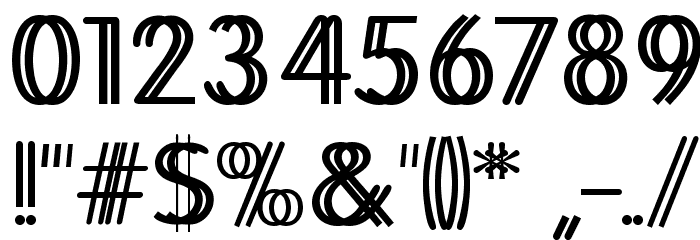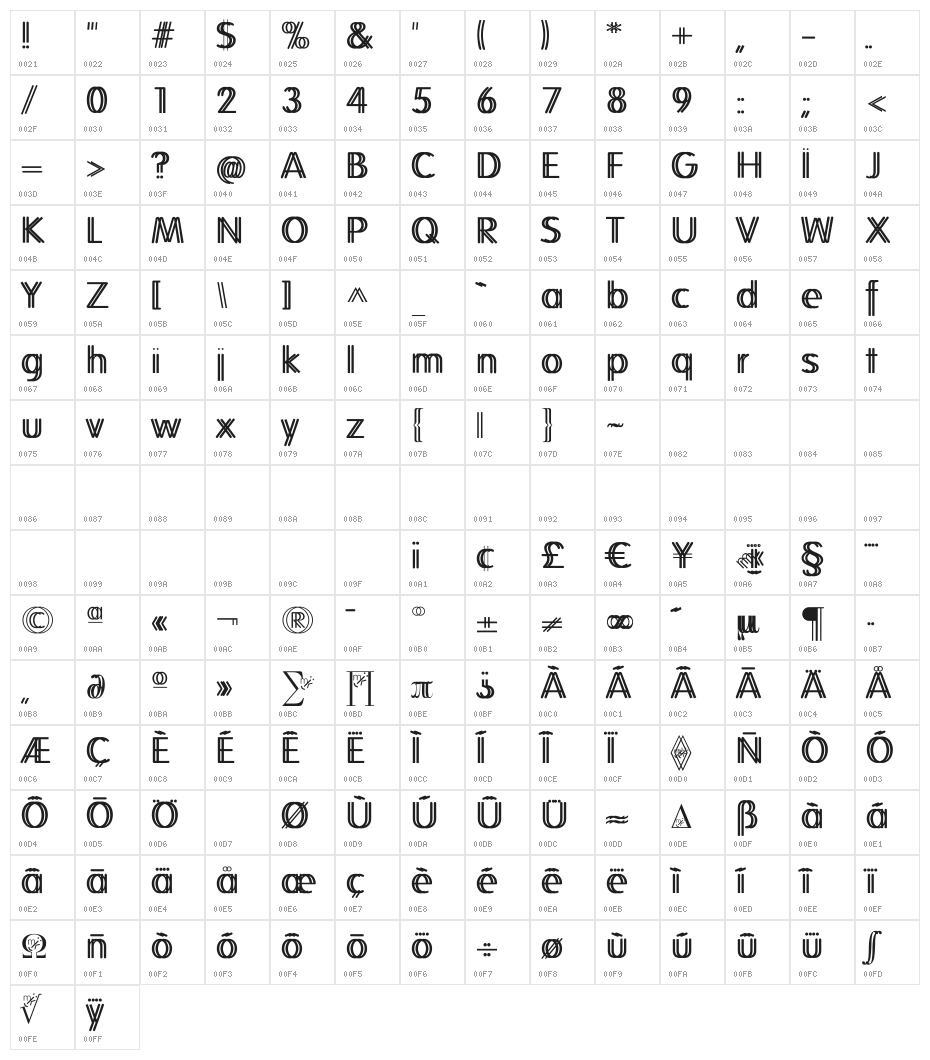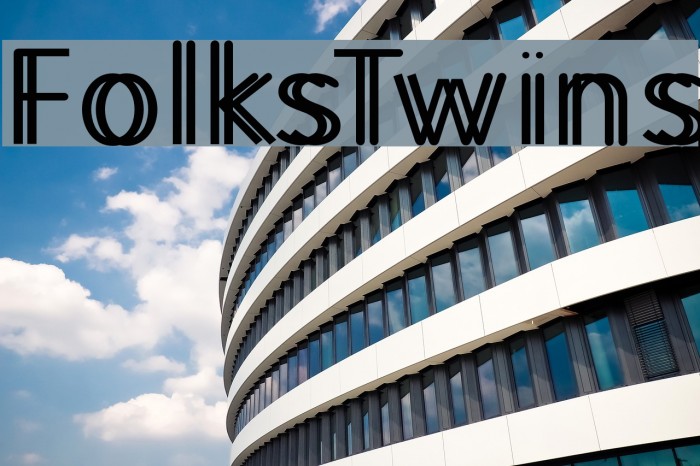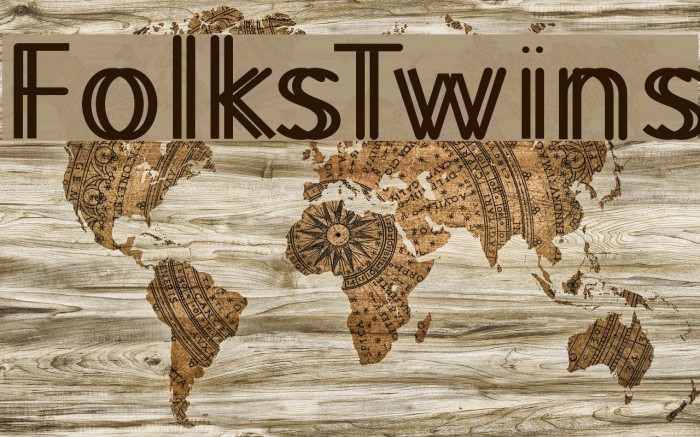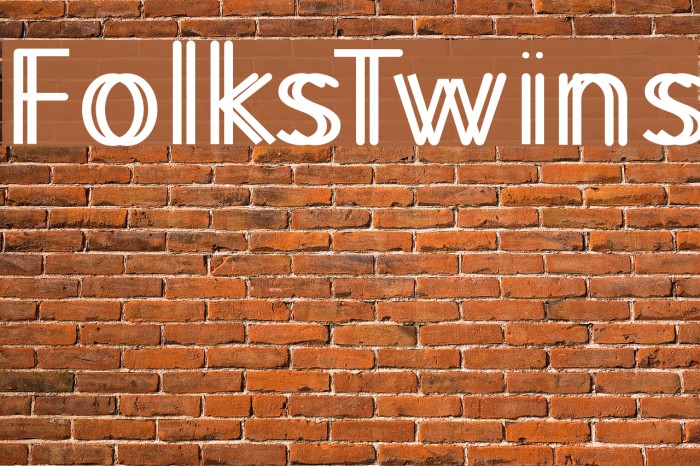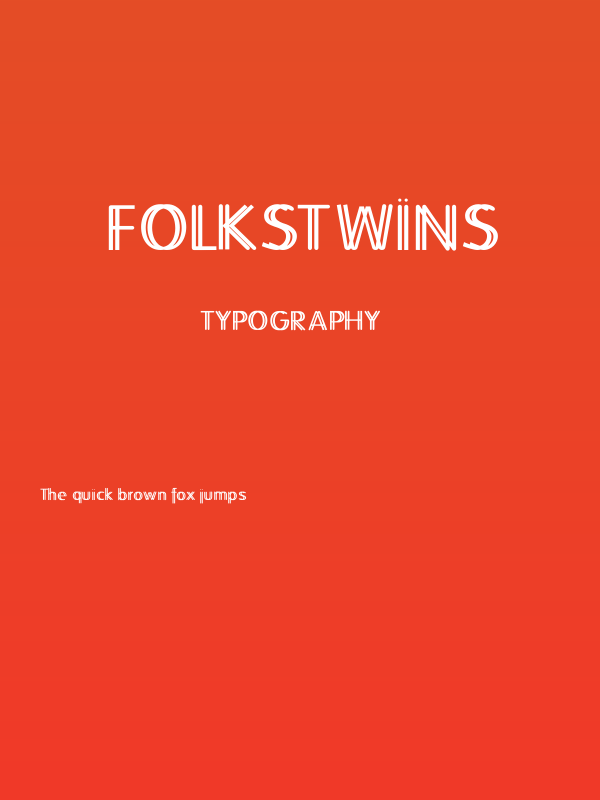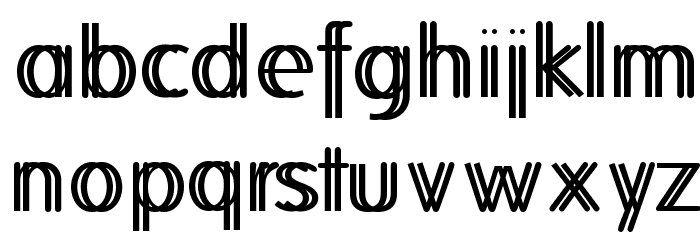
FolksTwins Font
FolksTwins Description
This font features a unique and playful design with a double-line effect that gives it a distinctive and modern appearance. The characters are bold and have a consistent thickness, creating a strong visual impact. The uppercase and lowercase letters maintain a uniform style, while the numbers and special characters complement the overall aesthetic. The font's geometric structure and clean lines make it suitable for various creative applications. Its quirky and artistic flair adds a touch of personality to any project, making it ideal for eye-catching designs.
| Proposed Projects | Ideal for branding, posters, headlines, and creative design projects. |